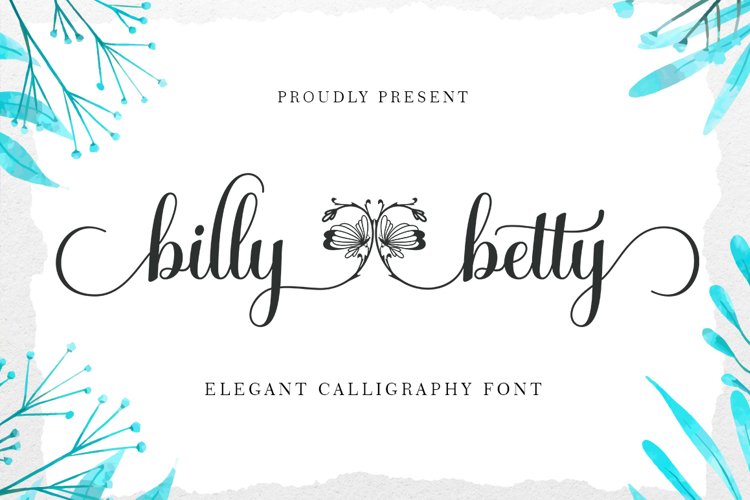
billy betty Font Duo - Elegant Calligraphy font
billy betty Font Duo - elegant Calligraphy font is a sweet and romantic calligraphy typeface with characters dancing along baseline. It has a casual yet elegant touch. It can be used for various purposes such as logos, wedding invitations, titles, t-shirts, letterheads, name boards, labels, news, posters, badges etc.
The font includes OpenType features with alternative styles, ligatures, and multiple language support.